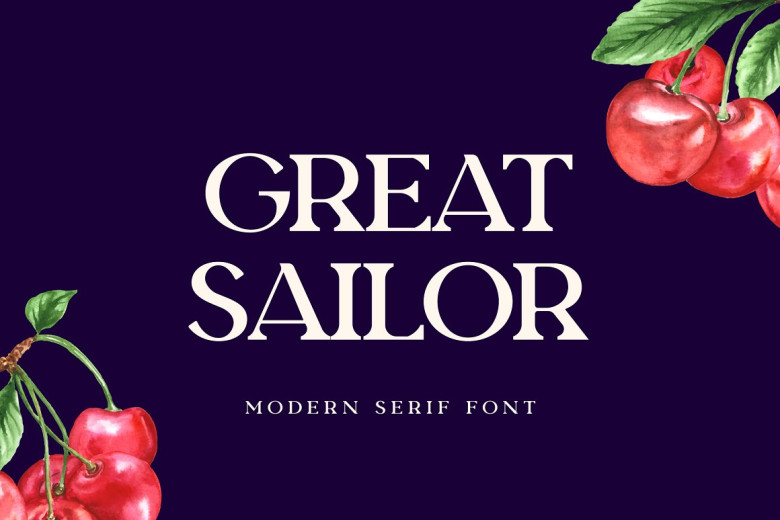
Great Sailor Font
Great Sailor is a modern font for the most beautiful, elegant, and lovely classic serif. This font is best used in a number of techniques among others including signature, stationery, logo/button, wedding, typography quote necklace layouts magazine or book cover letterhead website header or clothes label cloth marking packaging copy editing. Fashion-related branding or editorial design also shows both masculine and feminine characteristics.
Great Sailor Serif Font